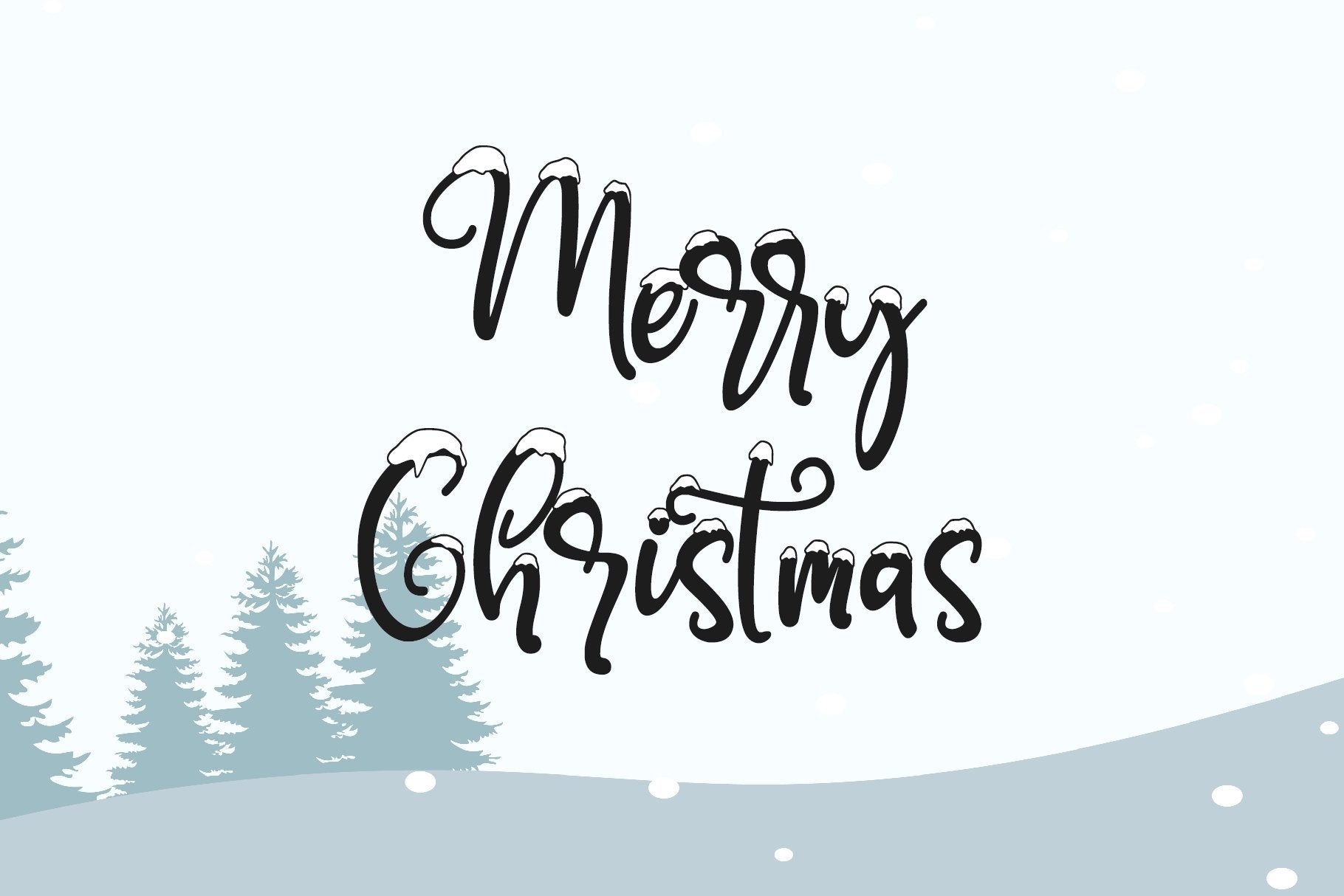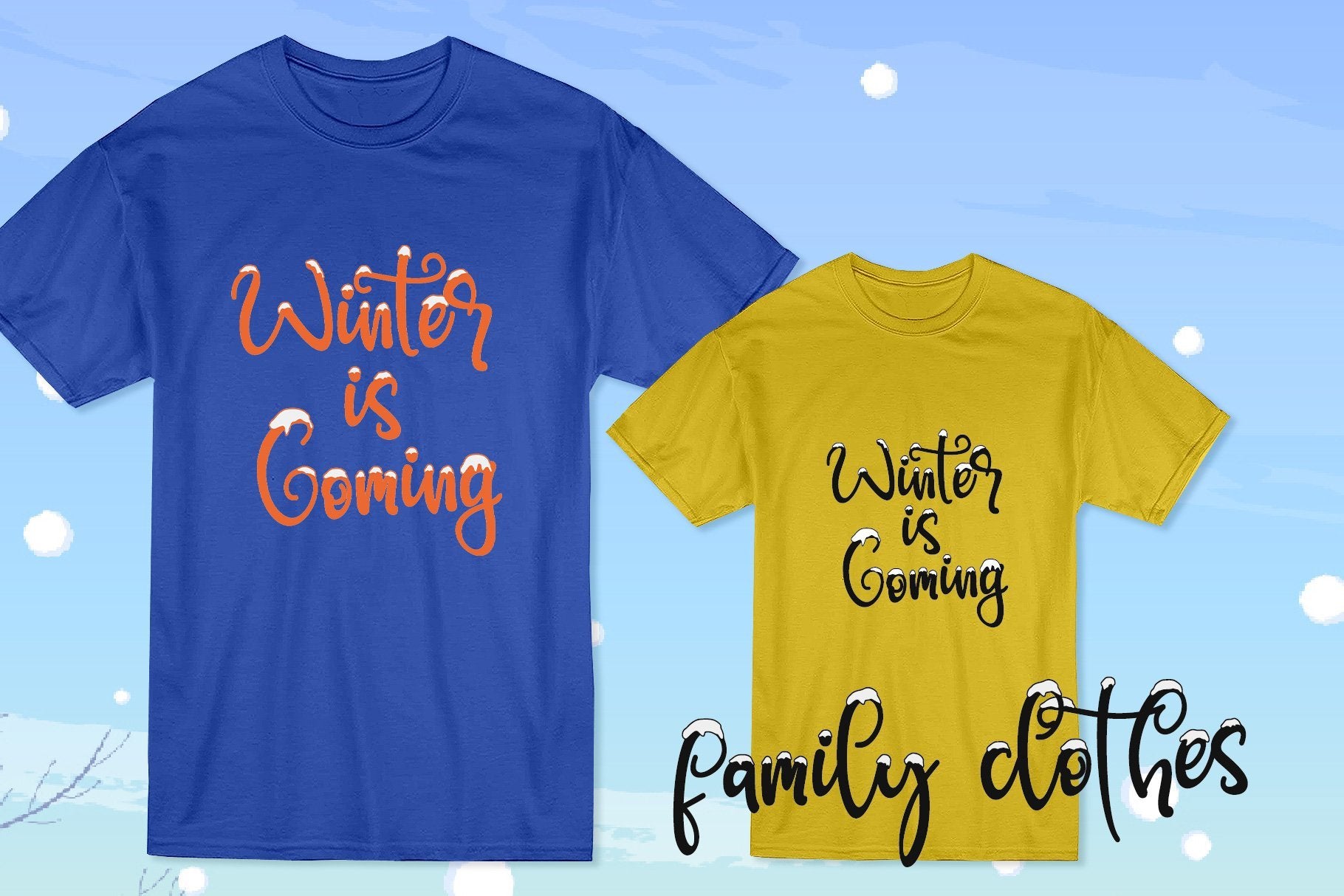
About SNOWBY
Snowby is a sweet and snowy display font with a magical feel. Each of its letters is covered in snow, making it the ideal font for any Winter-project! Features : – Upper Case & Lowercase – Numerals – Punctuations (OpenType Standard) – Accents (Multilingual characters) – Works on PC & Mac – Simple installations – Accessible in the Adobe Illustrator, Adobe Photoshop, Adobe InDesign, even works on Microsoft Word. don’t wait anymore, put it in your shopping basket 🙂 and follow me, because there will be many promos! Our other products : BEST SELLER BLACK PINK SIGNATURE ANDORA BRIGITTA HEANFFE EIFFEL IN LOVE ( FONT TRIO) BLACK PINK SUMMER HONG KONG ANGEL MALEFICENT California Street BESTOWENS FAMILY